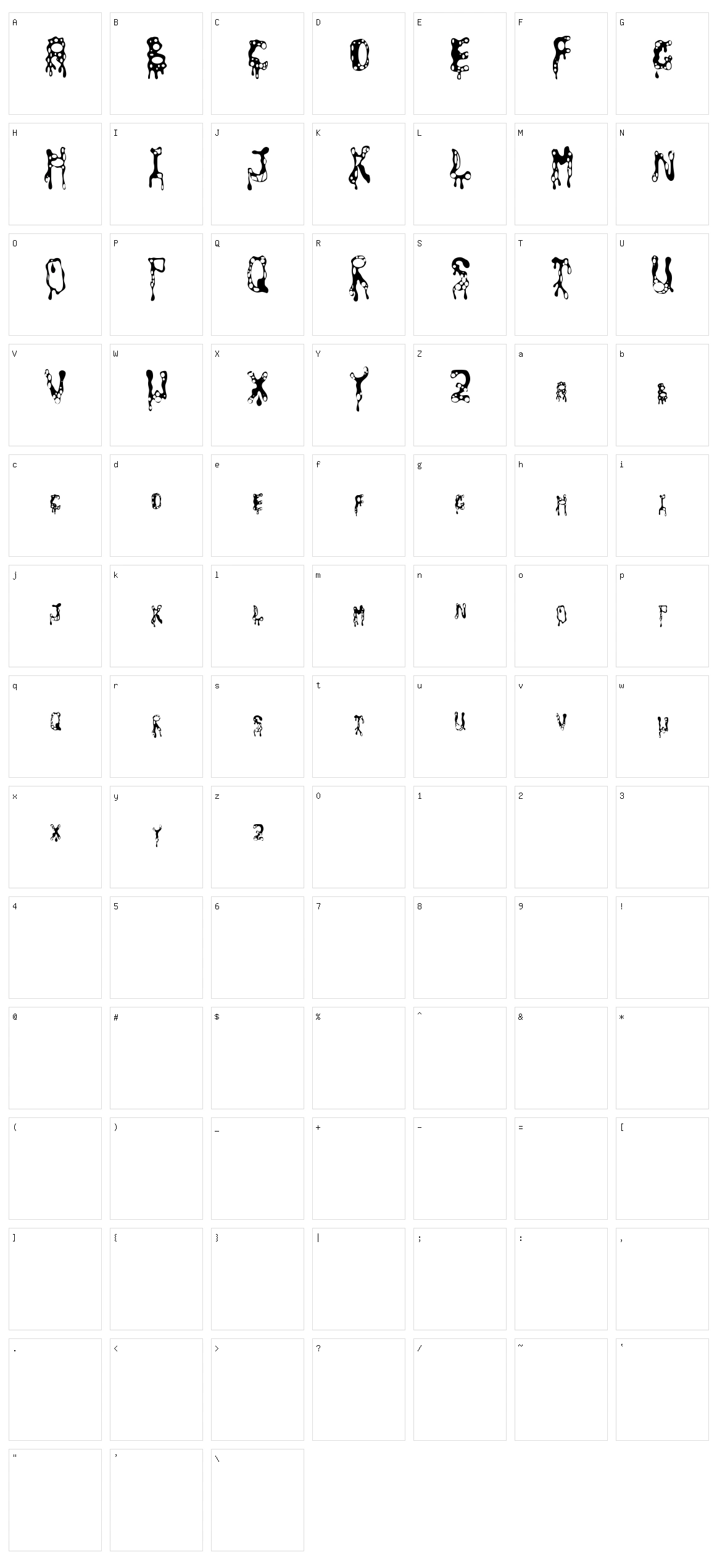
The free font Amoeba is carefully designed by Peter Taro, showcasing a thoughtful balance of creativity and usability and falls under the Horror font style. When you download the ZIP file, it contains only 11.69 KB of font files, making it lightweight and quick to download. Please review the license details below to understand permitted usage and distribution rights. If license information is not available, we recommend using this font for personal projects only or contacting the author directly for commercial usage permissions.